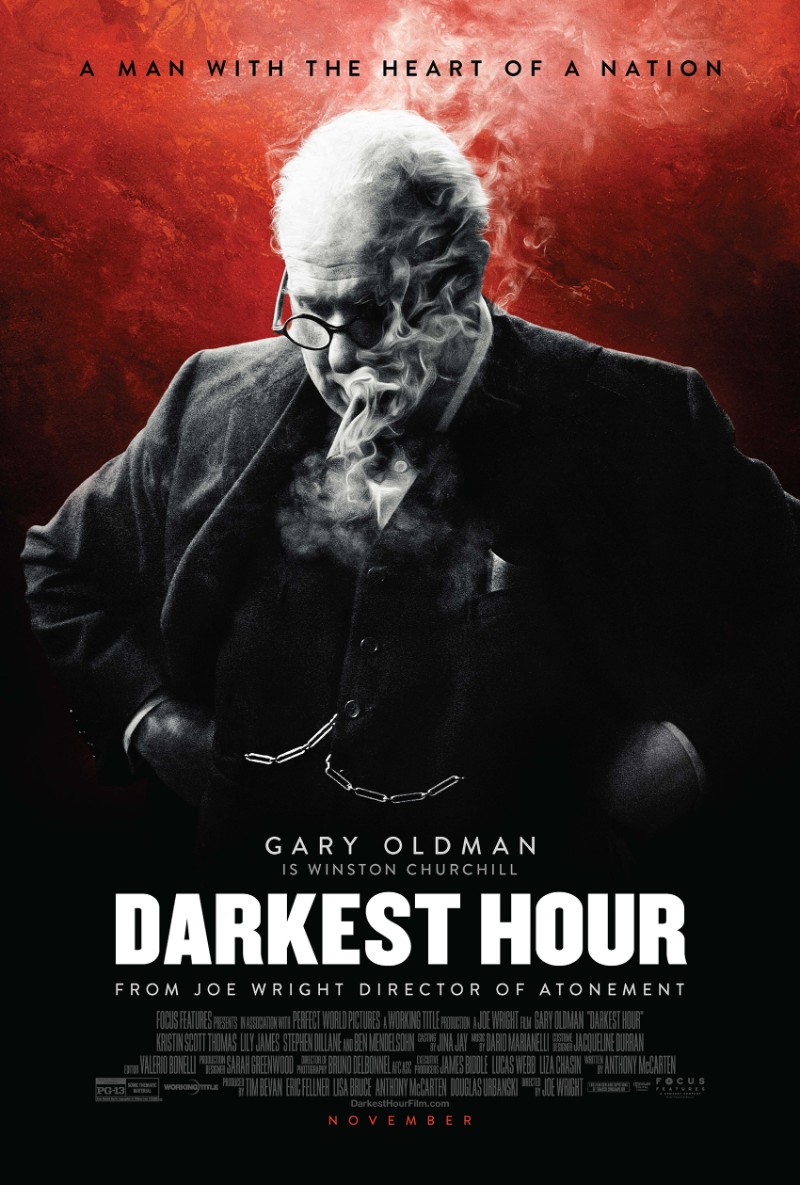
Darkest Hour Font
Fonts in UseDarkest Hour is a compelling war drama film that delves into the early days of Winston Churchill's tenure as the Prime Minister of the United Kingdom.
The film's title, showcased on the poster, is presented in the Champion Gothic Middleweight font. Designed by Hoefler & Co. in 1990, Champion Gothic is a sans-serif typeface that pays homage to the wood types of the late 19th century.